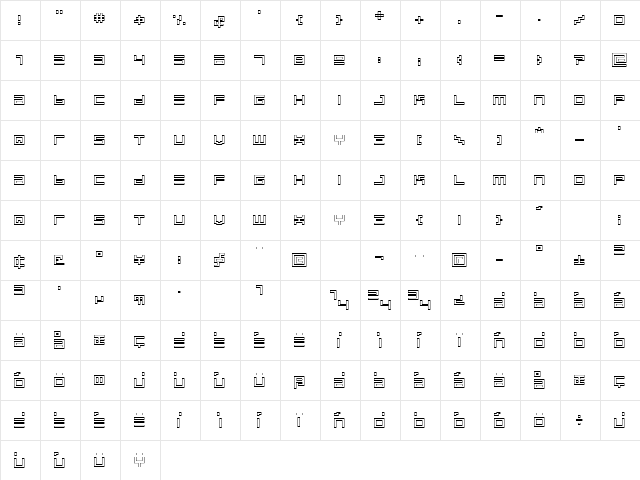
BIN Outline Regular
Design Context for BIN Outline Typeface
BIN Outline is built around its visual character rather than neutral utility — its distinctive forms are designed to make an impression at display sizes.
Font Pairing: Pair with a clean neutral sans-serif for body copy to let BIN Outline's character lead without overwhelming the composition.
Pro Tip: Treat BIN Outline as the centrepiece of your typographic hierarchy. One strong heading set in a decorative face can carry an entire layout.